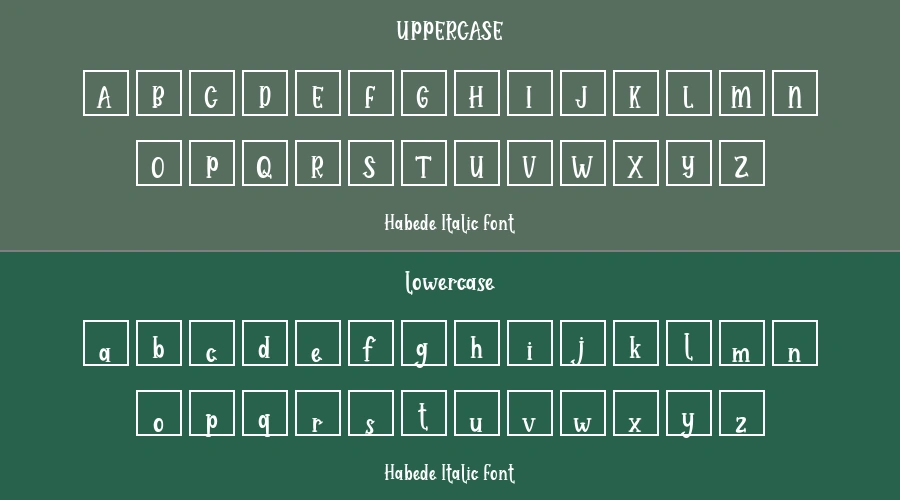
About Habede Italic Font
When typographic excellence matters most, Habede Italic Font delivers through its thoughtful blend of sharp terminals and consistency. Specially crafted for presentation decks, it offers the precision and brand power required for sophisticated design work. Every detail serves a purpose.
The character set showcases thoughtful details like refined proportions alongside functional subscript/superscript. This proves especially valuable in image captions, where footnote clarity directly influences results. Particular attention was paid to ear formation and historical references during development.